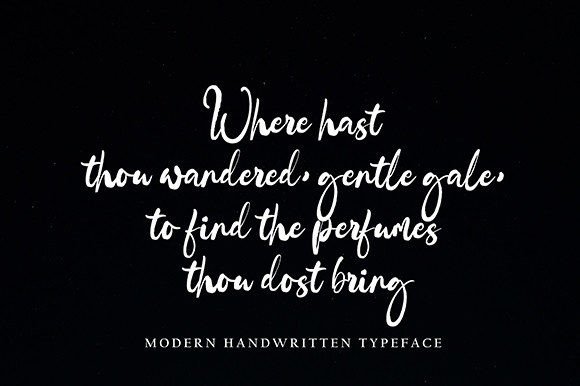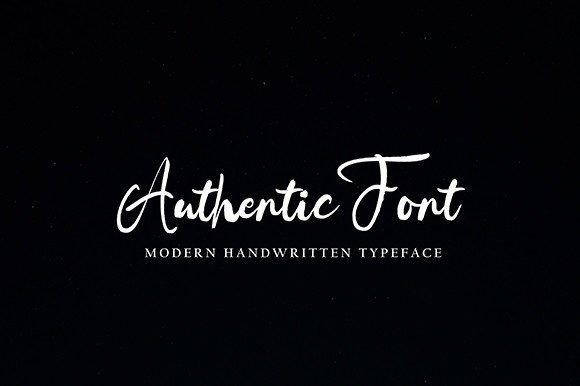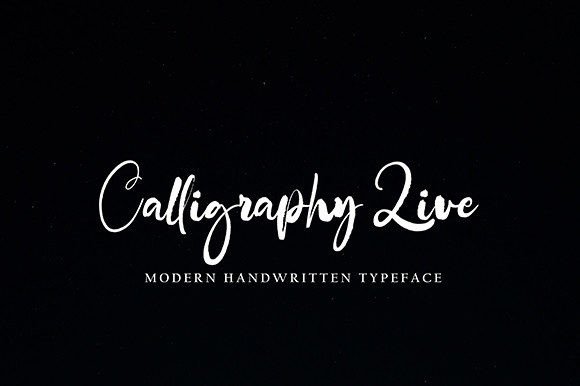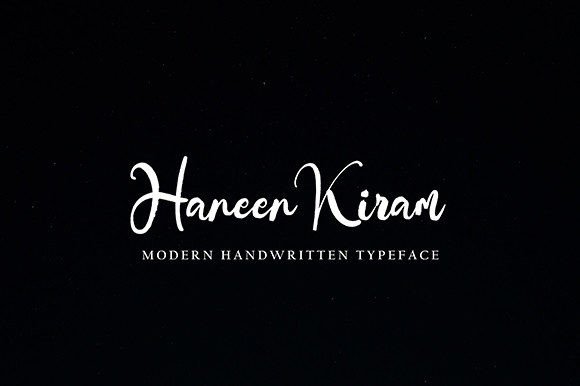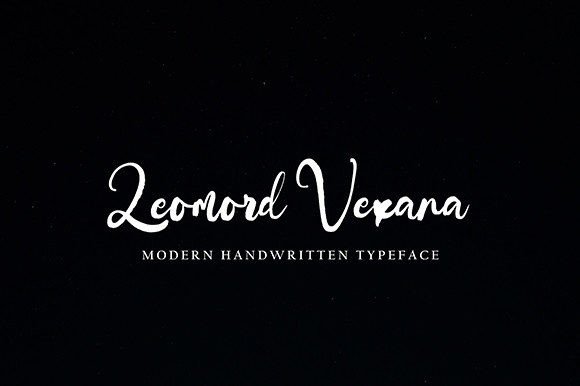
Introduction to Mallertal Font Font
Fonts play a crucial role in design, and the Mallertal Font font is a typeface that brings both character and versatility to any project. Whether you’re working on a branding project, a website, or a print design, the Mallertal Font font offers a unique style that can elevate your work.
Mallertal is an elegant and dainty handwritten font that features sweet and delicate swashes.
This original look will appeal to a wide range of crafty ideas, from letterheads and titles to stationery .
Key Features of Mallertal Font Font
Why Choose Mallertal Font Font?
The Mallertal Font font is more than just a typeface – it’s a design tool that helps you communicate your message with style and clarity. Its unique character set and versatile design make it suitable for a wide range of applications, from elegant invitations to bold headlines.
With its carefully crafted letterforms and balanced proportions, the Mallertal Font font ensures readability and visual appeal across all mediums.
What makes Mallertal Font font special?
The Mallertal Font font stands out with its unique design, exceptional readability, and versatility across various design applications.